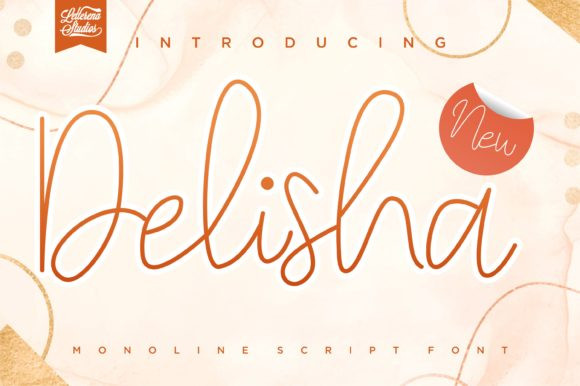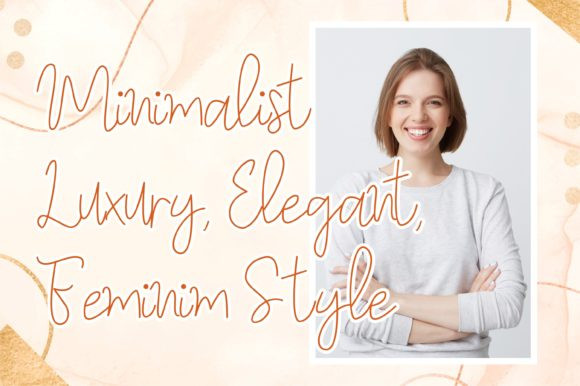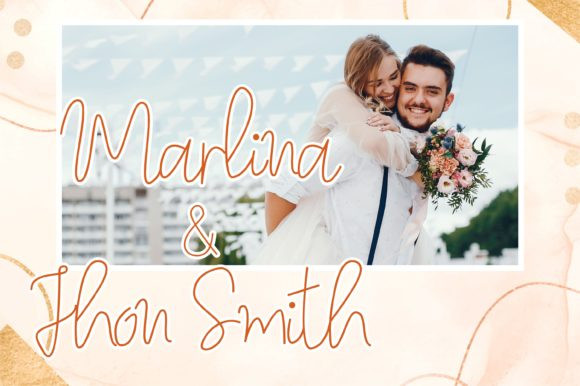
Delisha Font
Delisha is a sweet and natural handwritten font. Not too thin and not too thick, balanced and varied, Delisha was designed to enhance the beauty of your projects.